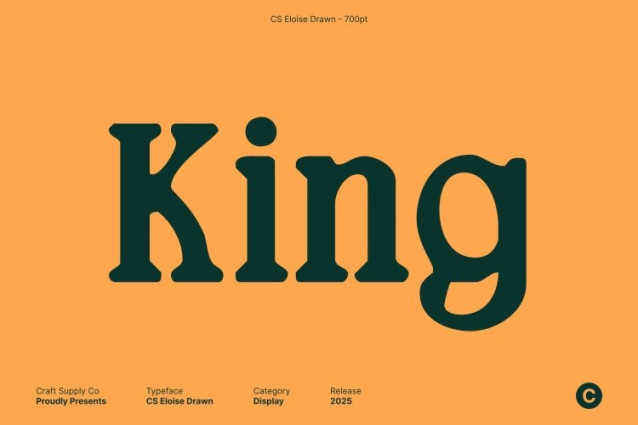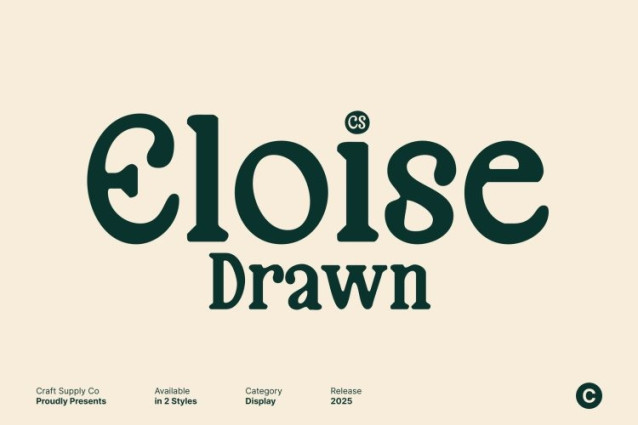
CS Eloise Drawn Font
CS Eloise Drawn Font – This is a modern retro inspired serif font that beautifully blends classic 90s nostalgia with a fresh, contemporary attitude. Its letterforms carry clean geometry softened by familiar retro curves, creating a distinctive aesthetic that feels both timeless and stylishly current.
Hand Drawn Texture for Authentic Warmth and Personality
The drawn texture enriches every character with subtle handmade charm, adding warmth, organic movement, and expressive detail. This handcrafted quality makes the font feel alive perfect for designers seeking a typeface with genuine personality and visual depth.
Aesthetic Look with Modern Flair and Retro Soul
Balanced between past and present, this font offers the visual appeal of nostalgic typography infused with modern design sensibilities. Its shapes feel approachable yet refined, making it ideal for projects that aim to evoke emotion, storytelling, and a sense of lived in history.
Perfect for Warm Branding, Posters, and Historic Event Graphics
Versatile and expressive, this font works beautifully in warm branding, posters, packaging, editorial design, and historic event graphics. Whether you’re crafting a nostalgic campaign or giving modern visuals a touch of retro identity, this font brings character, charm, and a memorable aesthetic to every layout.